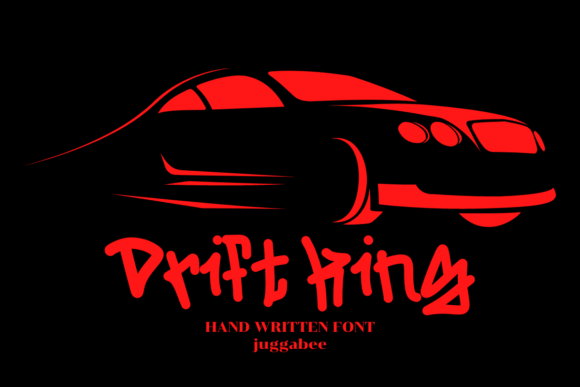
Introducing Drift King Font - The Key to Unlocking Knockout Design!
In a world saturated with bland and generic fonts, Drift King Font emerges as a breath of fresh air, a creative tour de force that will elevate your designs to new heights. This meticulously crafted script font, brought to life by the visionary artists at Juggabee, is the epitome of authenticity and effortless style.
With its graceful curves, elegant strokes, and an undeniable charm, Drift King Font possesses a timeless allure that will captivate your audience. Its meticulously designed characters exude a sense of authenticity, giving your projects an organic and hand-crafted feel. Whether you're a seasoned designer or a creative enthusiast, Drift King Font is your gateway to creating designs that resonate with your audience on a deeper level.
Step into the realm of creative possibilities with Drift King Font. Its versatility knows no bounds, seamlessly adapting to a myriad of projects, from captivating logos and branding materials to eye-catching social media posts and stunning wedding invitations. Let your imagination soar as you explore the endless opportunities that await you with this remarkable font.
Feel the exhilaration of creating designs that demand attention, designs that speak volumes about your brand's personality and values. With Drift King Font, you'll effortlessly convey a sense of sophistication, creativity, and unwavering dedication to excellence. Your audience will be drawn in by the font's captivating charm, unable to resist its magnetic pull.
Don't settle for ordinary, embrace the extraordinary with Drift King Font. Experience the joy of creating designs that leave an indelible mark on your audience, designs that inspire, engage, and ignite their passions. Unlock the full potential of your creativity and let Drift King Font guide you towards design greatness.